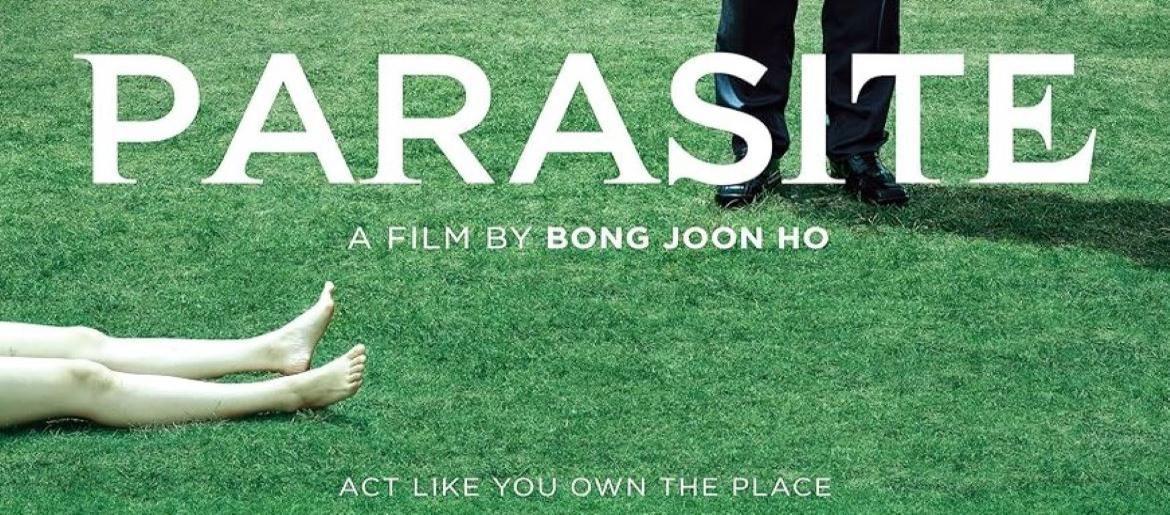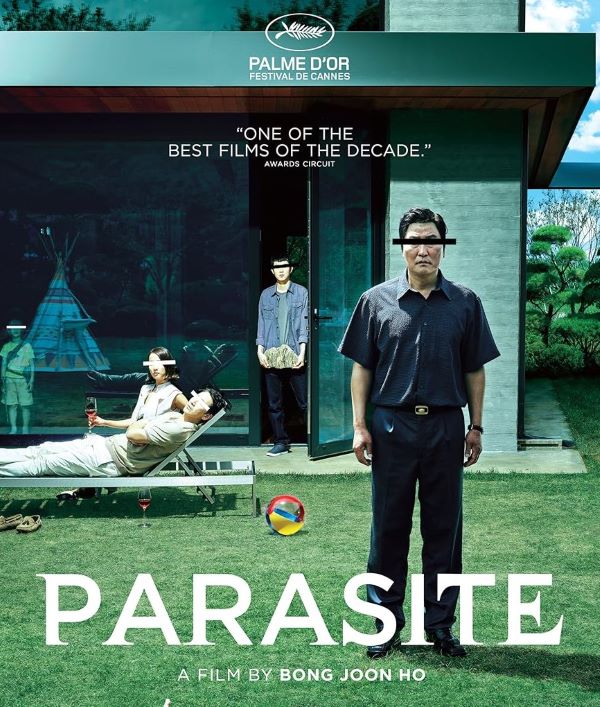
Parasite Font has a refined yet unsettling quality that, in my opinion, matches the tone of Bong Joon-ho’s masterpiece perfectly. The Parasite font is usually tied to a clean, minimalist serif style that feels modern but slightly offbeat—just enough to create a sense of tension beneath its elegance. To me, that’s what makes it so effective: it looks polished on the surface, but there’s something quietly unnerving about it, much like the film’s shifting moods. I think this font works beautifully for projects that want to balance sophistication with mystery, offering a subtle cinematic touch. When I see the Parasite font, it instantly reminds me of a story where appearances are deceiving, and nothing is quite as it seems.
Parasite is a 2019 South Korean black comedy thriller directed by Bong Joon-ho. It became the first non-English language film to win the Academy Award for Best Picture, praised for its sharp social commentary, suspense, and genre-blending storytelling.